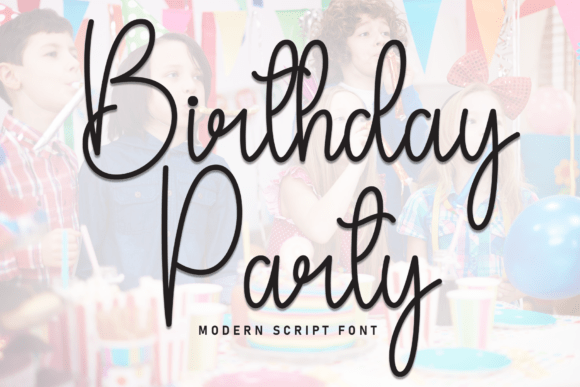
The Ultimate Guide to Birthday Party Font: Elevate Your Designs with Elegance and Charm
I’ll never forget the time I was working on a birthday invitation project for a client, and I just couldn’t seem to find the perfect font. The design needed something that was both elegant and playful, but everything I tried seemed to fall flat. That’s when I stumbled upon the Birthday Party font, and it was love at first sight! 💕 In this article, I’ll share my experience with this beautiful font, its features, and how to make the most of it in your designs.
An Honest Review of Birthday Party Font
• ✨ Elegant and modern: Birthday Party font combines the best of both worlds, bringing a touch of sophistication and a dash of modern flair to any project.
• ✅ Versatile: Its flowing strokes and organic curves make it perfect for a wide range of applications, from branding to social media and invitations.
• 💫 Effortless charm: This font has a way of adding a personal touch to your designs, making them feel more refined and polished.
While Birthday Party font is an amazing addition to any design project, there are a few things to keep in mind:
• ⚠️ Legibility at small sizes: As with many script fonts, Birthday Party can get a bit tricky to read at very small sizes. Make sure to test it out and adjust as needed.
• 🤔 Overuse of swashes: While the font’s swashes and flourishes are beautiful, too many can make the text hard to read. Balance is key!
4. Experiment with OpenType features like swashes and stylistic alternates to add some extra flair to your text.
The Designer Inspiration Behind Birthday Party Font
While the true story behind Birthday Party font might be a mystery, it’s easy to imagine that its designer was inspired by the joy and celebration of, well, birthday parties! 🎉 Perhaps they wanted to create a font that would bring a touch of elegance and whimsy to any project, making it perfect for special occasions and everyday designs alike.
Font Name Birthday Party Font
Q: What makes Birthday Party font so special?
A: Birthday Party font stands out for its elegant yet modern design, making it perfect for a wide range of projects, from formal invitations to social media graphics.
Q: Is Birthday Party font difficult to read?
A: Like many script fonts, Birthday Party can be a bit challenging to read at small sizes or in large blocks of text. Use it in moderation and balance it with other fonts for optimal readability.